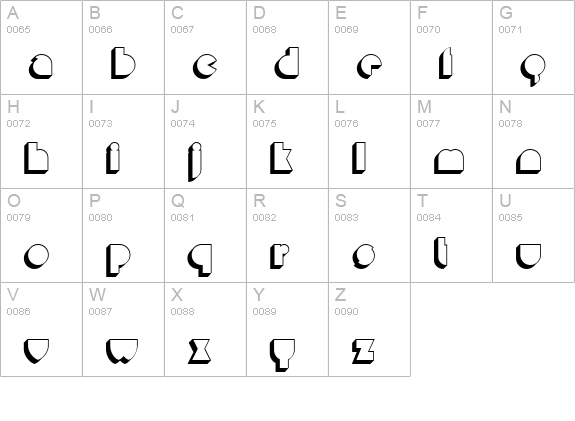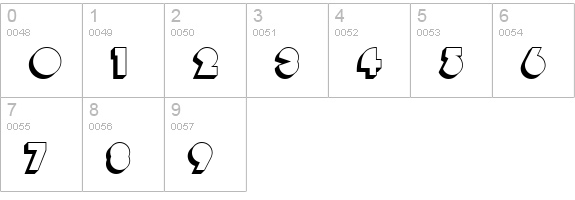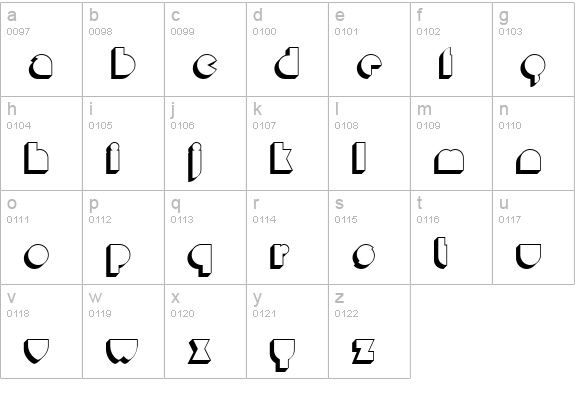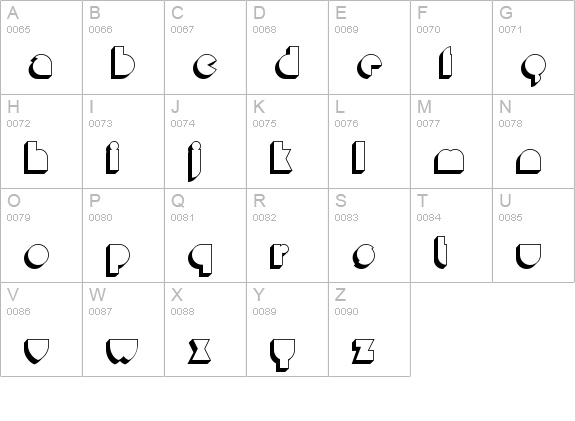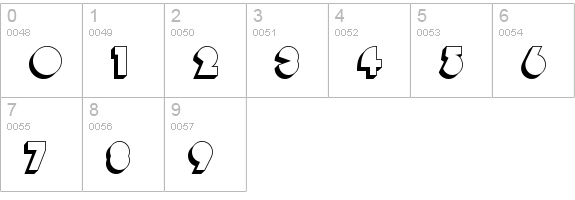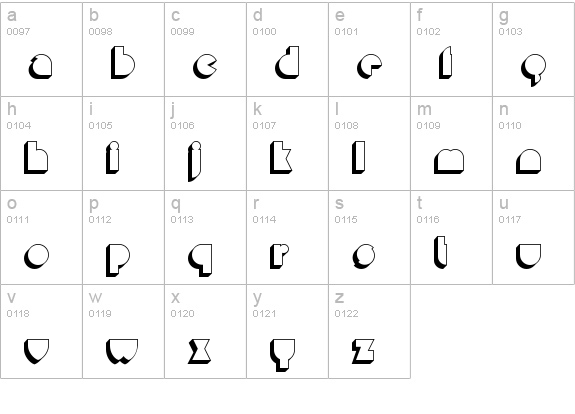
Misirlou Day Font Details
Misirlou Day font is a stunning and elegant display typeface that exudes a sense of sophistication and charm. With its unique and intricate letterforms, this font is perfect for adding a touch of style and class to your designs. The flowing curves and sharp angles of Misirlou Day create a beautiful contrast that is sure to catch the eye. What makes Misirlou Day font even more appealing is that it is available for free download at FontsMarket.com. This means that you can easily access this gorgeous font and use it in your projects without any cost. Whether you are designing a website, creating a poster, or crafting a logo, Misirlou Day font is a versatile and eye-catching choice that will elevate your work to the next level. Don't miss out on the opportunity to enhance your designs with the beauty of Misirlou Day font. Download it for free today at FontsMarket.com and let your creativity shine!